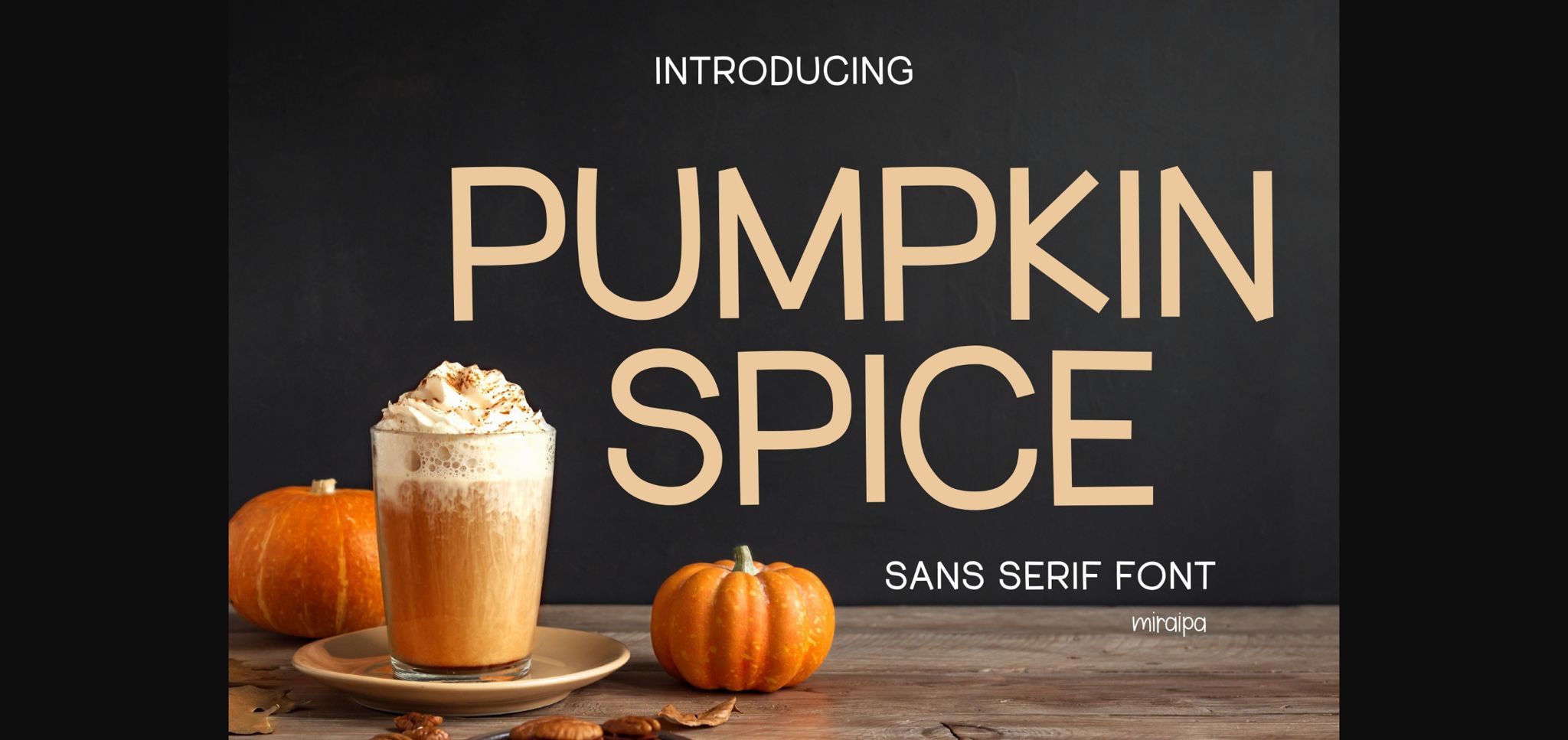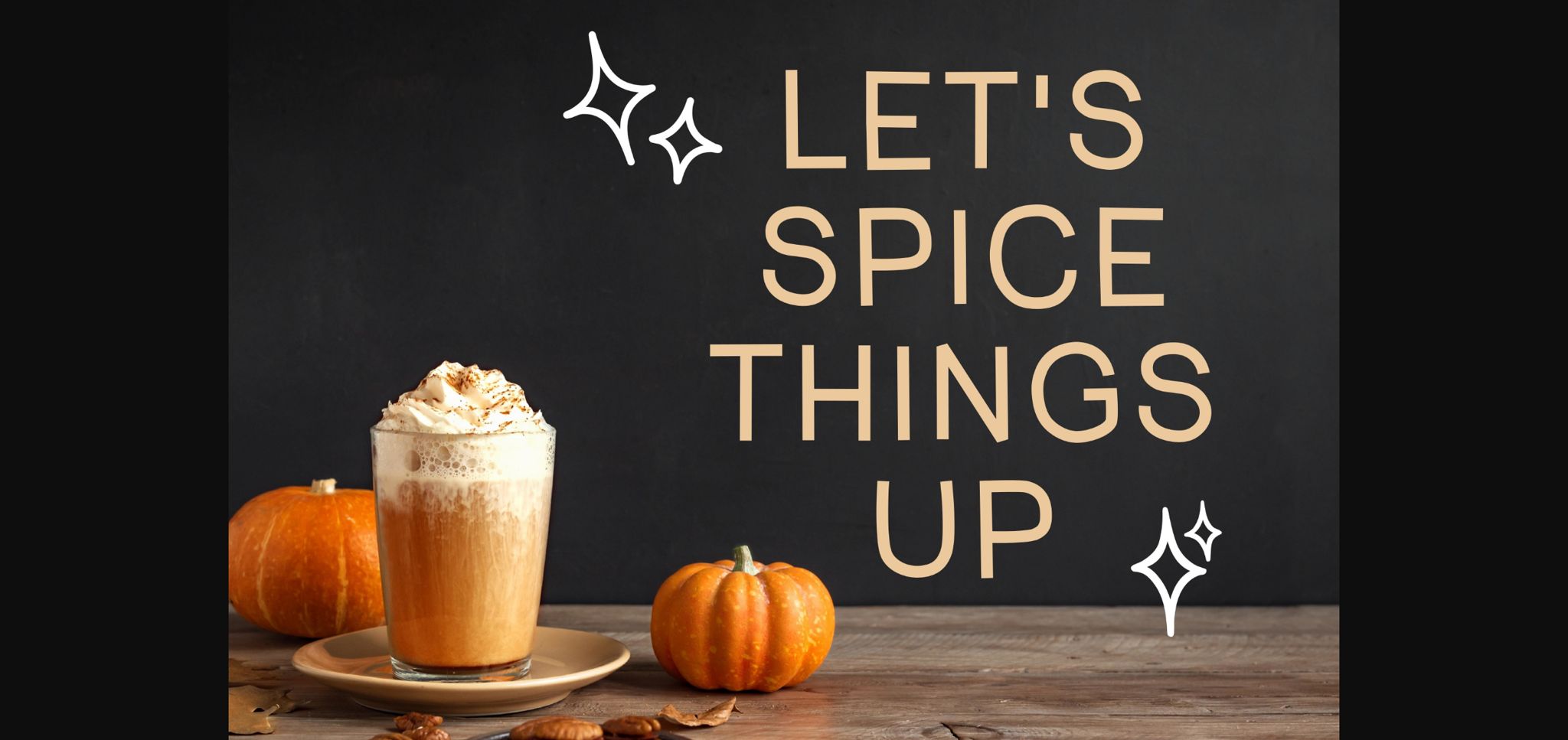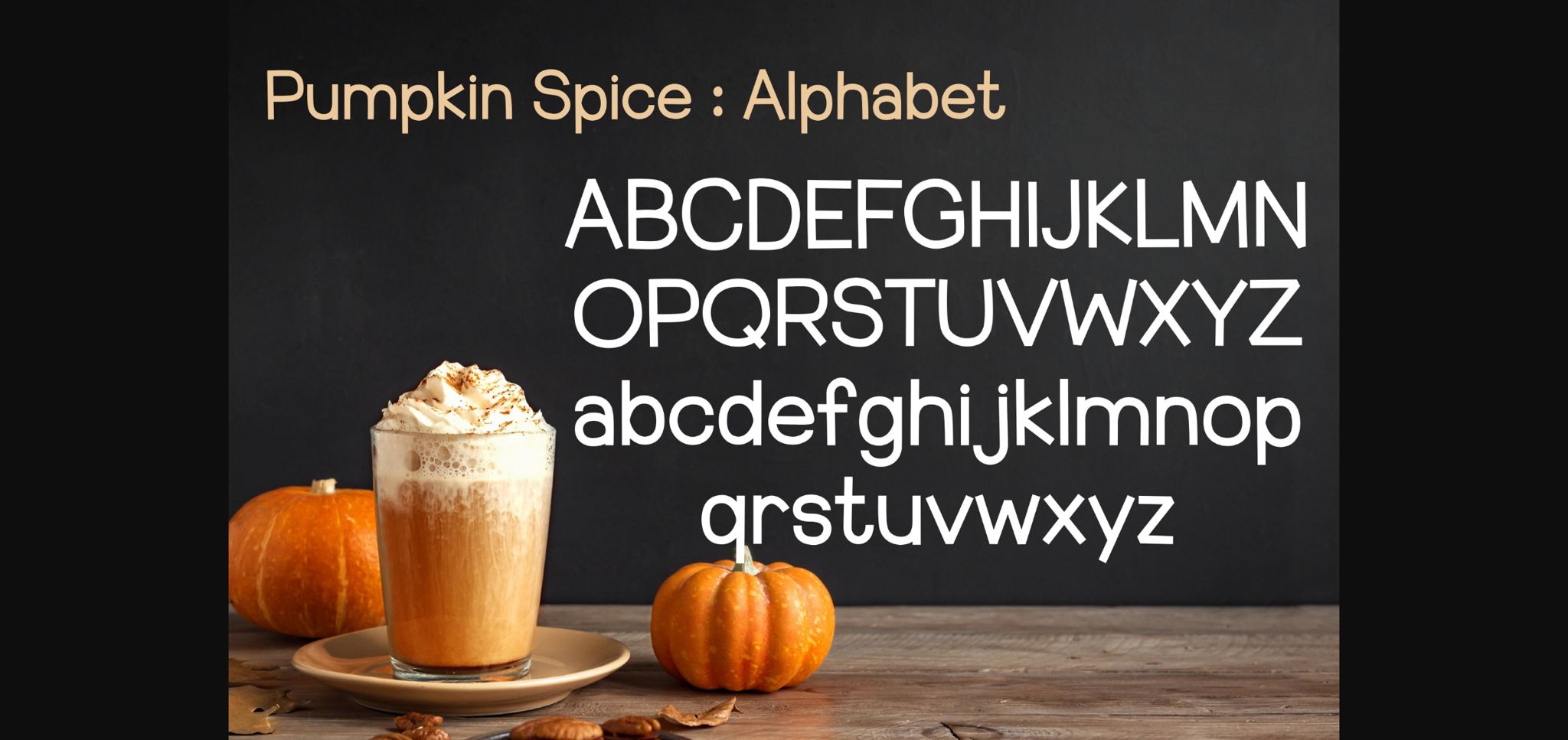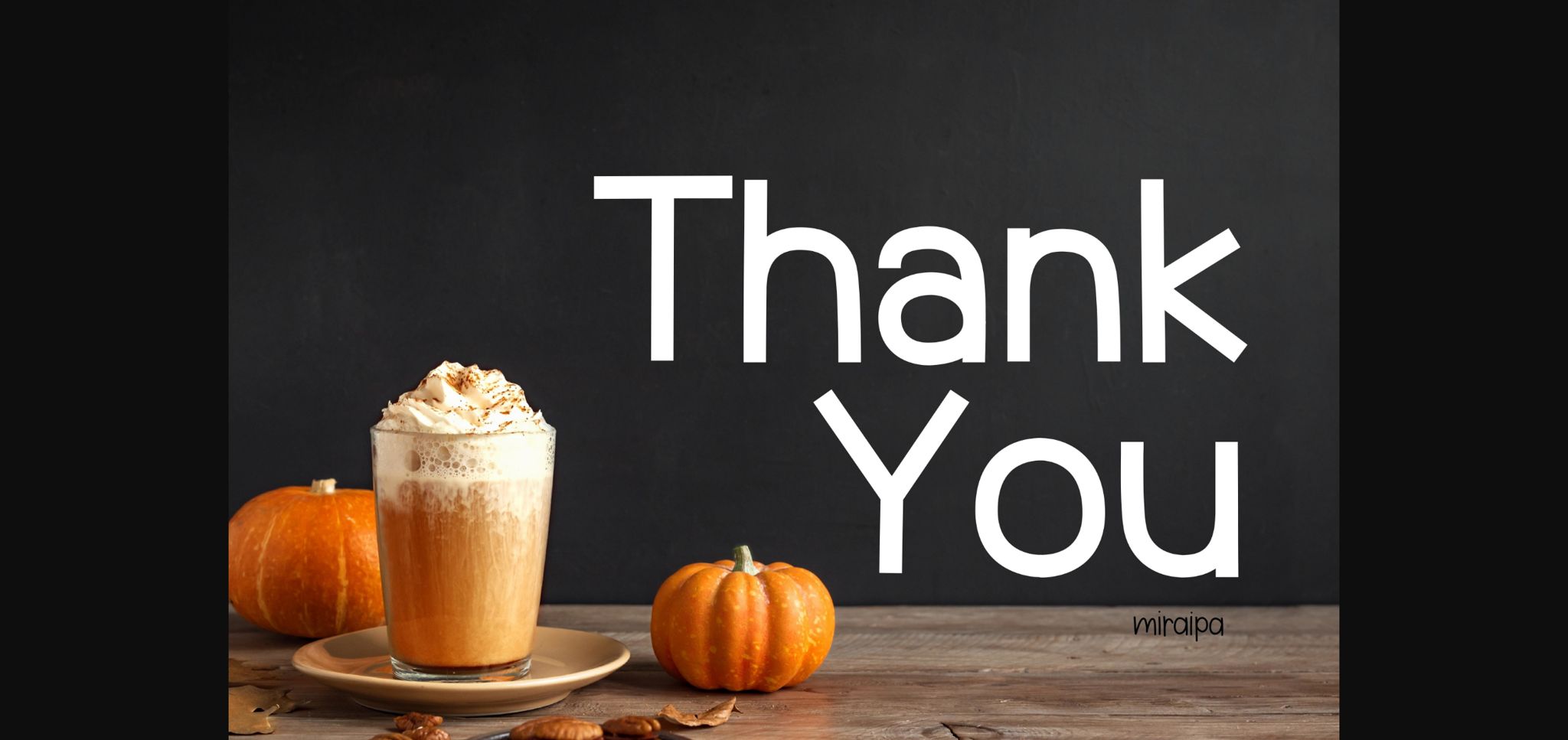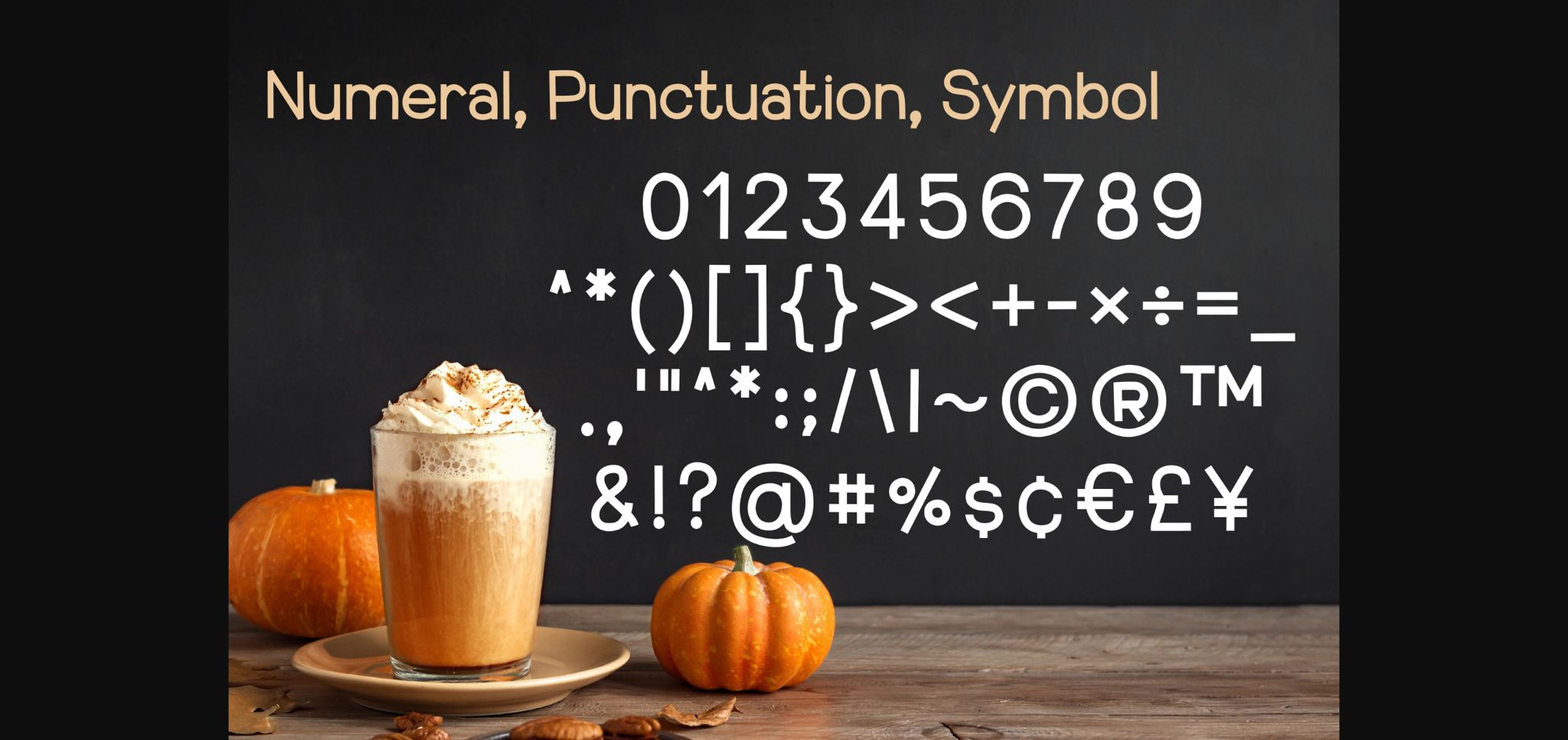
Pumpkin Spice Font
Pumpkin Spice is a fun and friendly sans serif font. Whether you’re using it for crafts, digital design, presentations, or making greeting cards, this font has the potential to become your favorite go-to font, no matter the occasion!